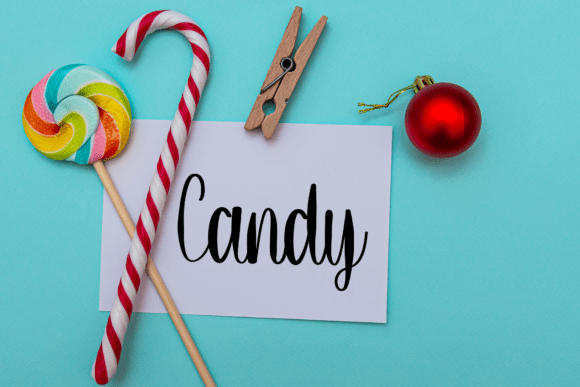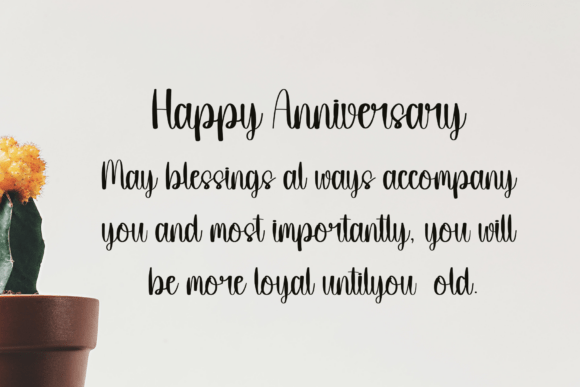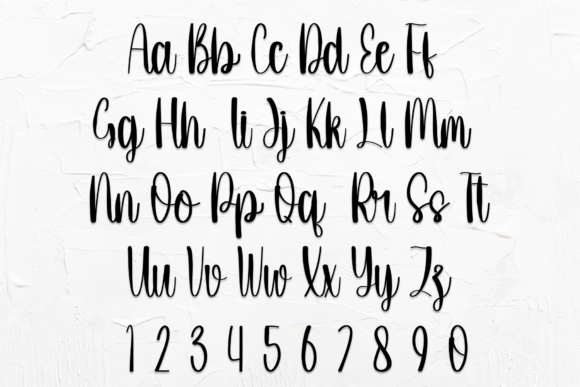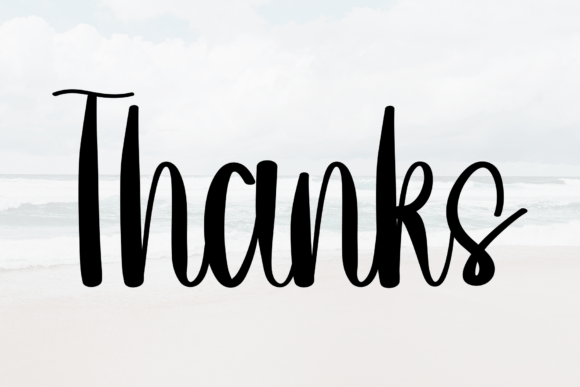
Getting Ready for a Summer of Creativity
There’s nothing quite like the feeling of brainstorming ideas for a new design project while sipping a cold drink by the beach. The sound of the waves, the warmth of the sun, and the endless possibilities – it’s the perfect setting for creativity to flow. As you sketch out your ideas, you start thinking about the perfect font to bring your project to life.
Enter Beach Holiday Font, a beautiful handwritten font that captures the essence of a summer getaway. With its playful characters that dance along the baseline, this font is the perfect addition to any design project that needs a cozy and inviting touch. Whether you’re creating a travel brochure, a summer-themed advertisement, or a personal project, Beach Holiday Font is sure to add a touch of warmth and personality to your design.
Beach Holiday Font Key Features
- Font Style: Casual, Script, Beach-inspired
- Unique Characteristics: Handwritten, Distressed, Beach-themed illustrations and ornaments
- Character Count: Over 700 glyphs, including Latin, Cyrillic, and Greek alphabets
Beach Holiday Font Review
Overall, I was excited to dive into the Beach Holiday Font, but my experience was a mixed bag. Here’s the lowdown.
- The Beach Holiday Font has a unique, playful vibe that’s perfect for summer-themed projects or travel-inspired designs.
- The font’s irregularities and imperfections give it a fun, handwritten feel that’s easy to work with.
- The font includes a range of weights and styles, making it versatile for different design applications.
- The Beach Holiday Font can be a bit too whimsical for more formal or professional designs, which might limit its use in certain contexts.
- The font’s irregularities, while charming, can also make it difficult to read in certain situations, particularly at smaller font sizes.
- Lack of support for non-English languages may be a drawback for designers working with multilingual clients or projects.
Overall, the Beach Holiday Font is a great choice for casual, creative projects, but it may not be the best fit for more formal or complex designs.
Use the Beach Holiday Font for designs related to summer, travel, or relaxation. Experiment with different font sizes and colors to create a visually appealing design.
The Beach Holiday Font is ideal for:
- Summer-themed posters and flyers.
- Travel brochures and advertisements.
- Relaxation and wellness-themed designs.
Alternatives to “Beach Holiday Font” for Designers
Lato is a modern sans-serif font that is perfect for designing websites, logos, and other digital content. It is highly legible and versatile, making it suitable for a wide range of applications. Compared to Beach Holiday Font, Lato has a more minimalist and clean design, which can be beneficial for designers who want to create a professional and sophisticated look.
Playfair Display is an elegant and luxurious serif font that is ideal for designing high-end branding, advertising, and editorial content. It has a classic and sophisticated look, making it perfect for designers who want to create a sense of luxury and refinement. Compared to Beach Holiday Font, Playfair Display has a more formal and traditional design, which can be beneficial for designers who want to create a sense of sophistication and elegance.
Abril Fatface is a luxurious and elegant serif font that is perfect for designing high-end branding, advertising, and editorial content. It has a classic and sophisticated look, making it ideal for designers who want to create a sense of luxury and refinement. Compared to Beach Holiday Font, Abril Fatface has a more formal and traditional design, which can be beneficial for designers who want to create a sense of sophistication and elegance.